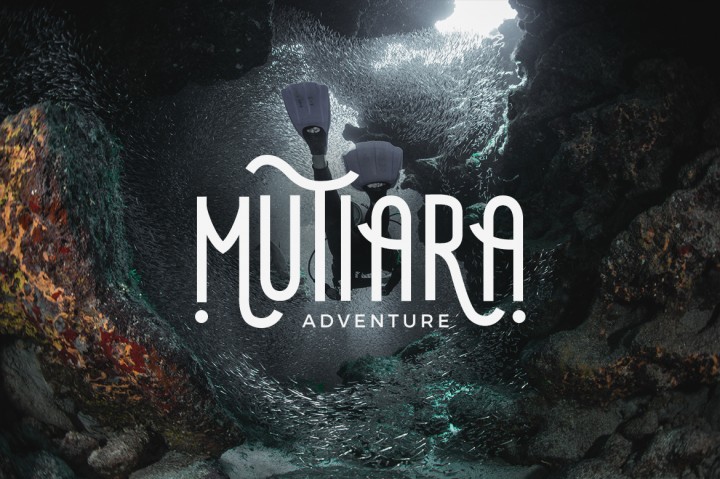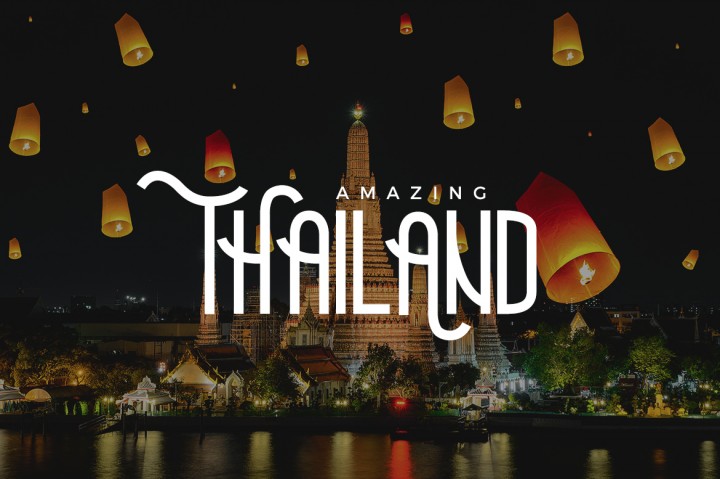
Extraordinary Handmade Font
We Provide You one of the best Stylish Hand Written Script. Best match for logos, header, Titles, Prints & other Creative process possibilities.